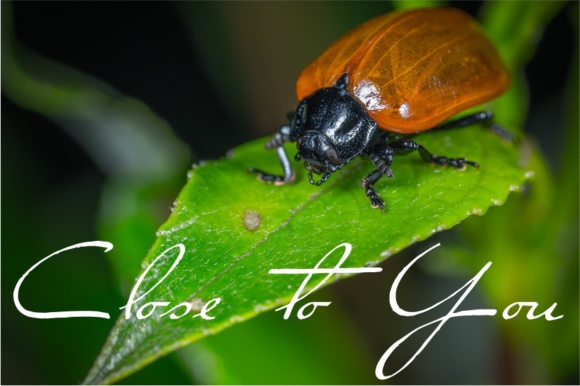
Close to You Font
About Close to You Font
Close to You is a script font that looks stunning in a wide array of projects and styles. This font has a cool look, and will add a casual vibe to your works.